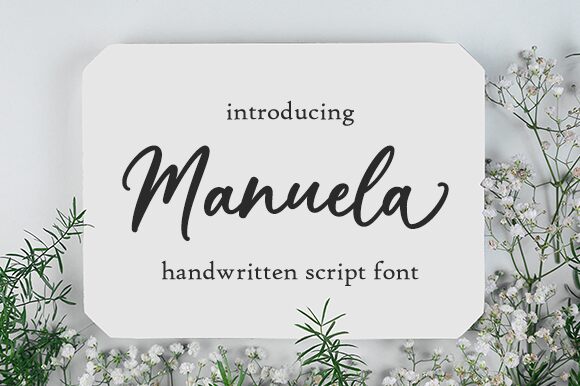
Manuela
Meet Manuela, the charming handwritten script font by Aldi Raya Pradipta. With its delicate curves and elegant strokes, this font is perfect for a wide range of projects. Whether you're designing wedding invitations, greeting cards, or social media graphics, Manuela adds a touch of sophistication and personalization to any project. Its flowing lines and natural texture make it suitable for anything from fashion blogs to food packaging. Embrace the playful nature of this font by using it in children's book illustrations or incorporate its graceful style into your branding efforts. Add a personal touch to your designs with Manuela!